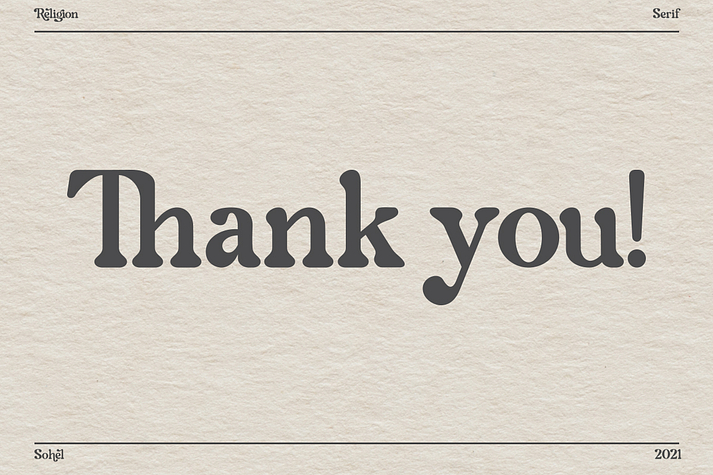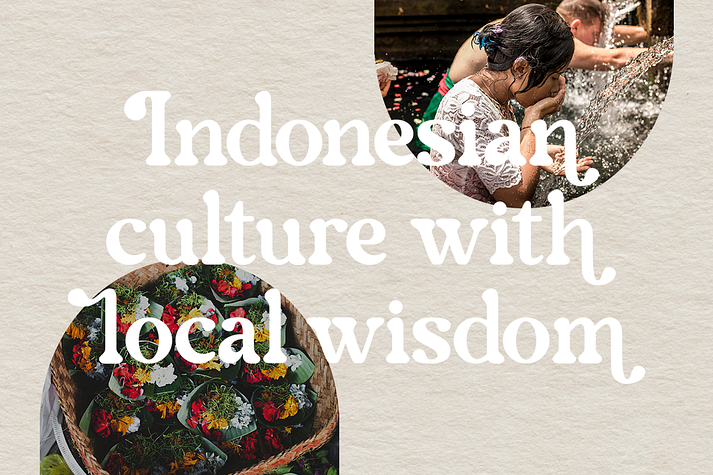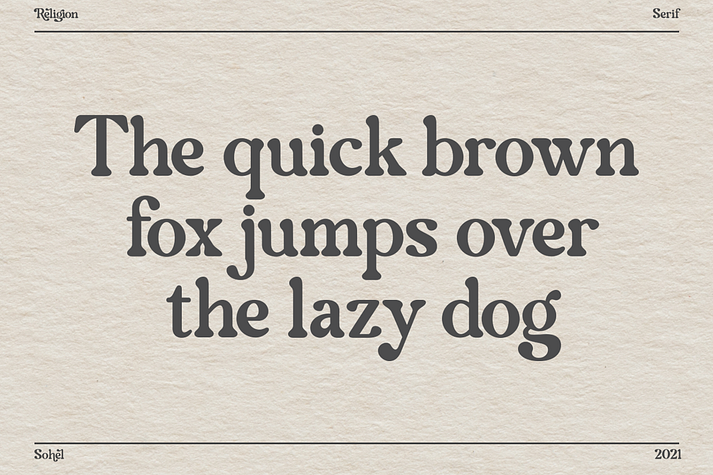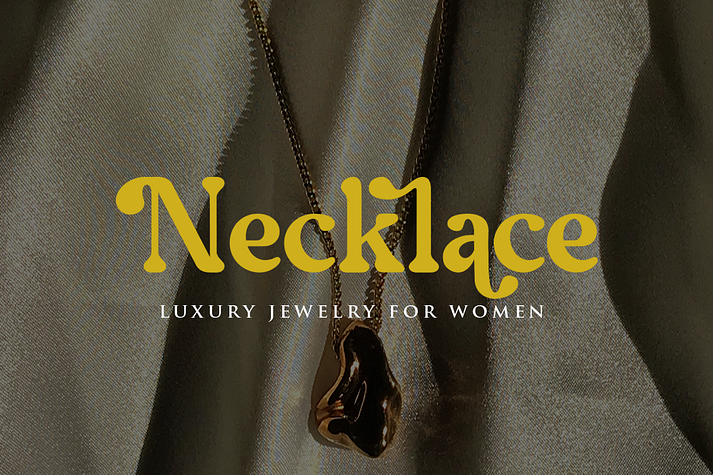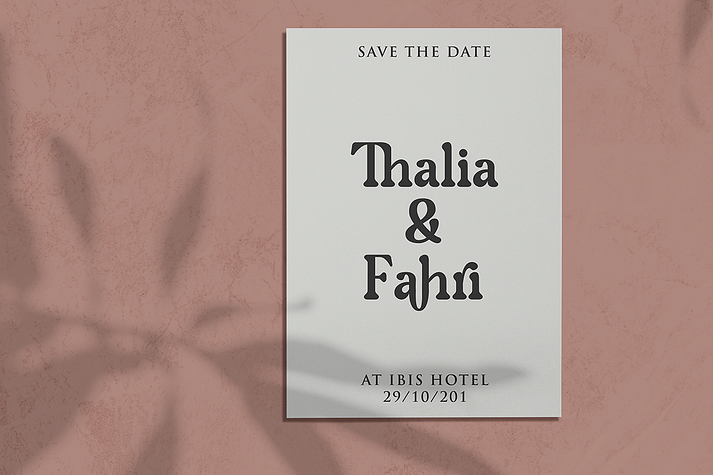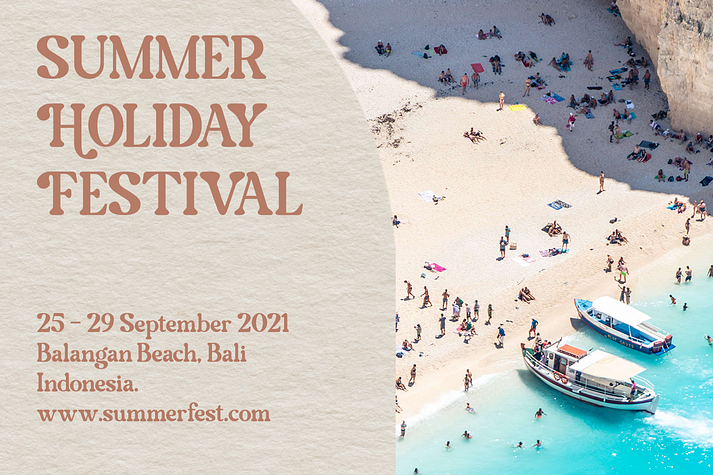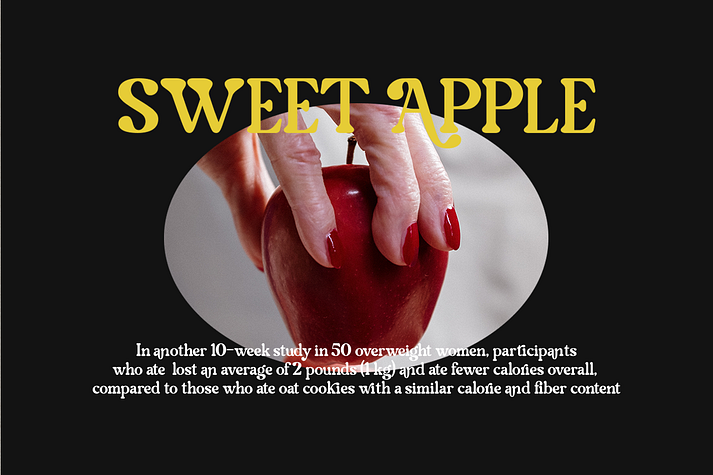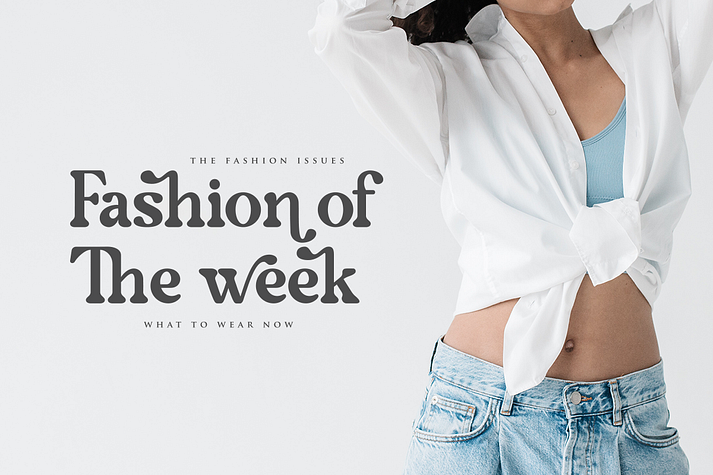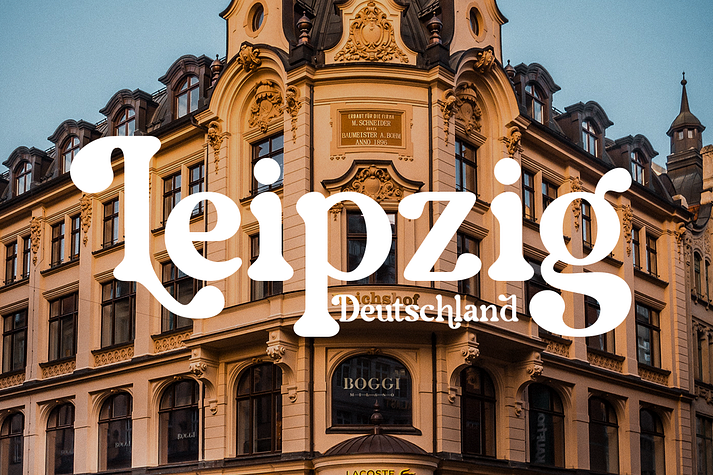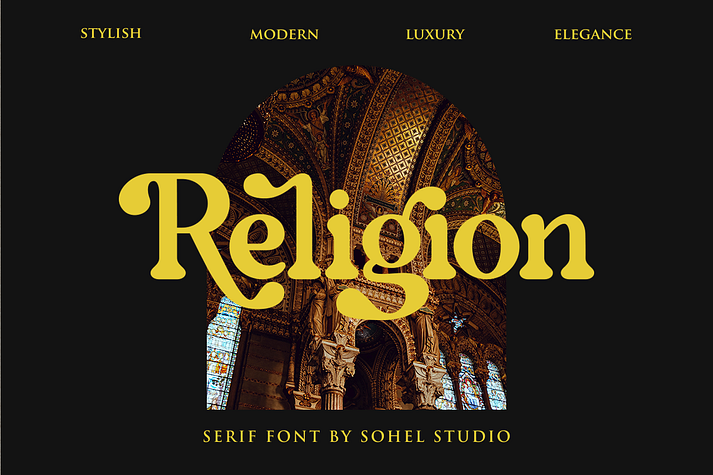
Religion
Religion is a display serif and retro font family. This typeface has two styles and was published by Sohel Studio.
Religion – Modern Bold Serif Font is a stylish font It has both modern and retro look. Comes with alternatives and ligatures, helps to create stunning logos, quotes, posts, blog posts. branding projects, magazine imagery, wedding invitations, and much more.
- Letters, numbers, punctuation, multilingual support, alternate and - ligature
- Regular and Italic